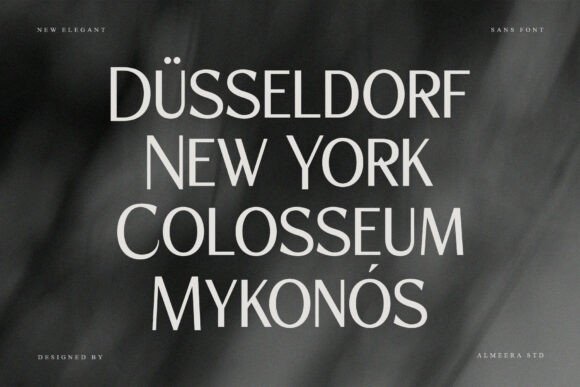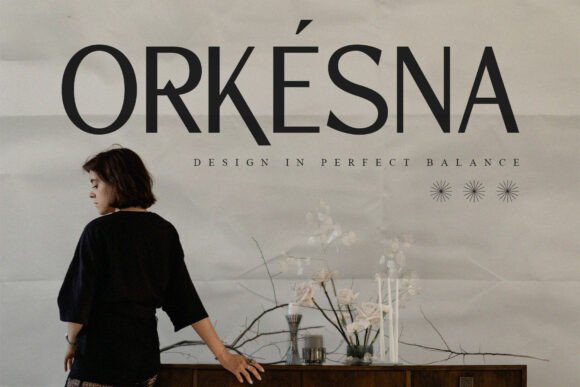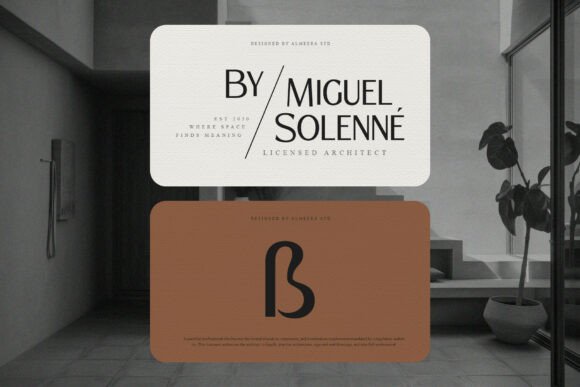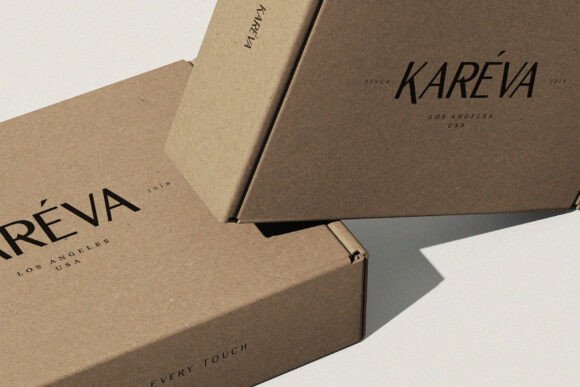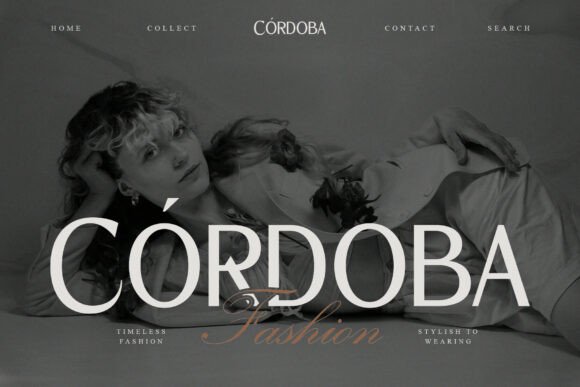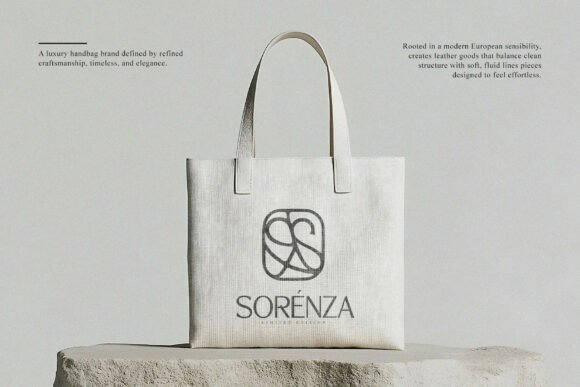
Averon Font: Elevate Your Design with Modern Elegance
In the world of typography, a font can make or break a design. Averon Font, a clean and elegant modern sans serif font, is here to revolutionize the way you approach your creative projects. Designed with precision, balance, and contemporary clarity, Averon is the perfect choice for designers and crafters looking to elevate their visual identity.
The Art of Modern Typography
Averon’s minimal construction and refined geometry create a professional visual tone that feels timeless yet modern. Its sleek letterforms and harmonious spacing make it an exceptional performer in various design applications, from branding projects and editorial layouts to headlines, digital interfaces, and visual identities.
Readability and Aesthetic Presence
One of the standout features of Averon Font is its emphasis on readability. In today’s fast-paced digital landscape, it’s crucial to communicate your message effectively. Averon’s clean lines and balanced proportions ensure that your text is easy to read, making it a dependable choice for structured and modern design systems.
Multilingual Support and Flexibility
In a globalized market, typography needs to be versatile. Averon Font offers multilingual support, allowing you to create content that resonates with diverse audiences worldwide. Its consistent proportions ensure flexibility across various creative applications, from commercial branding to editorial design.
When you choose Averon Font, you get more than just a stylish typeface. Your package includes:
- Numbers and fractions
- Punctuation and symbols
- Alternates and ligatures for added typographic flair
- Multilingual support for global reach
Design Applications
Averon Font is a versatile tool that can elevate various design projects, including:
- Branding Projects: Create a lasting impression with Averon’s sleek and modern aesthetic.
- Editorial Layouts: Enhance your publications with a font that prioritizes readability and visual appeal.
- Headlines: Make a statement with Averon’s bold and elegant letterforms.
- Digital Interfaces: Improve user experience with a font that’s optimized for digital screens.
- Visual Identities: Establish a strong brand presence with Averon’s distinctive style.
Why Choose Averon Font?
In a crowded market, Averon Font stands out for its:
- Clean and Elegant Design: Perfect for modern designs that require a touch of sophistication.
- Precision and Balance: Ensures a professional visual tone that’s both timeless and contemporary.
- Multilingual Support: Helps you reach a global audience with confidence.
- Flexibility: Suitable for various design applications, from commercial branding to editorial layouts.
Averon Font is more than just a typeface – it’s a design solution that can elevate your creative projects. With its modern sans serif style, emphasis on readability, and multilingual support, Averon is the perfect choice for designers and crafters looking to make a lasting impression. Whether you’re working on a branding project, editorial layout, or digital interface, Averon Font is a dependable choice that will help you achieve your design goals.